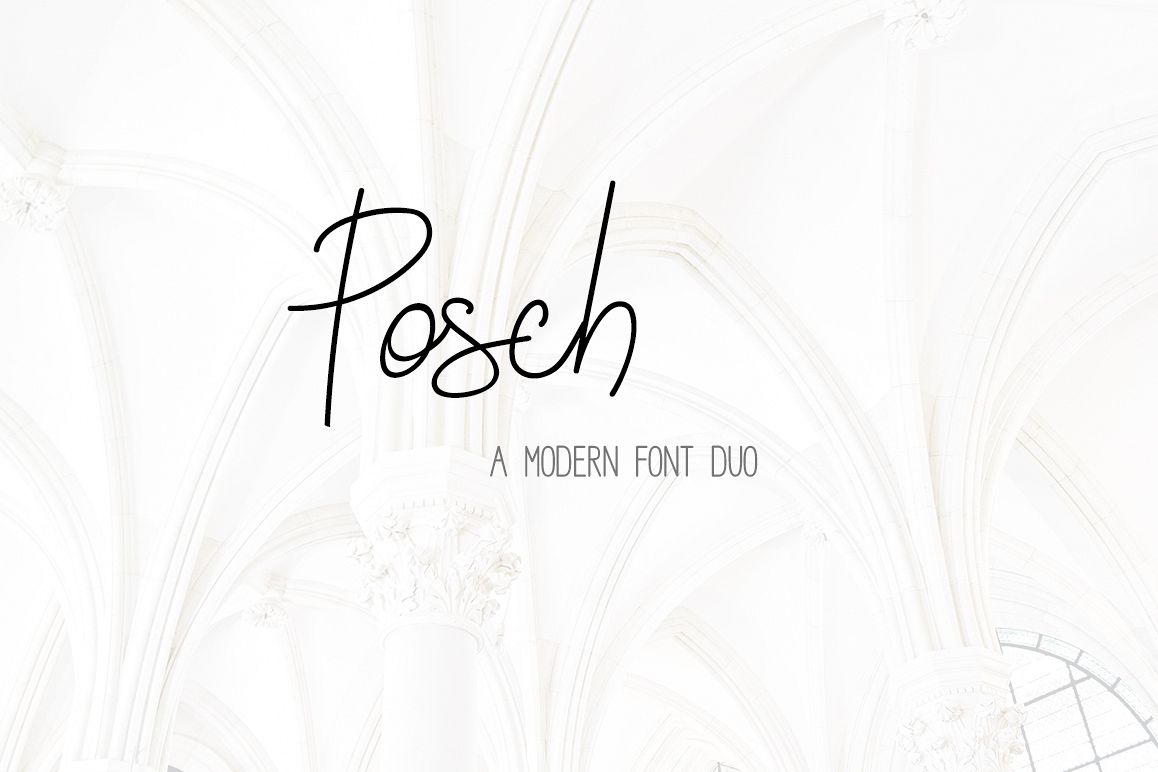
Posch is the perfect font to create a handwritten feel for lettering on blogs and advertisements.
- handwritten
- hybrid script
- modern & fun
- cursive
- a slight slant
Contains all capital and lowercase letters with all punctuation.  Some extra standard ligatures thrown in where needed.
Posch Sans Serif
- A thin and bold Sans serif that pairs perfectly with the cursive script!